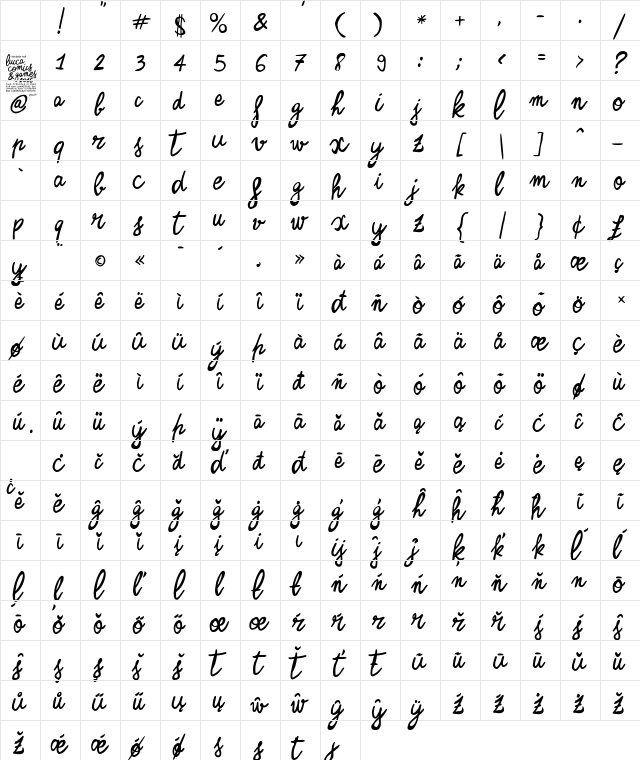
Complete Zerocalcare Script Regular glyph index. Displaying only characters natively supported by Zerocalcare Script Regular font.
Zerocalcare Script flows with the natural rhythm of handwritten lettering, making it ideal for designs that call for warmth and personal expression.
Font Pairing: Combine Zerocalcare Script with a simple geometric sans for maximum contrast - the tension between flowing curves and clean structure is a classic typographic pairing.
Pro Tip: Use Zerocalcare Script for short runs of text - names, titles, or taglines. Extended body copy in script faces tires the eye quickly.